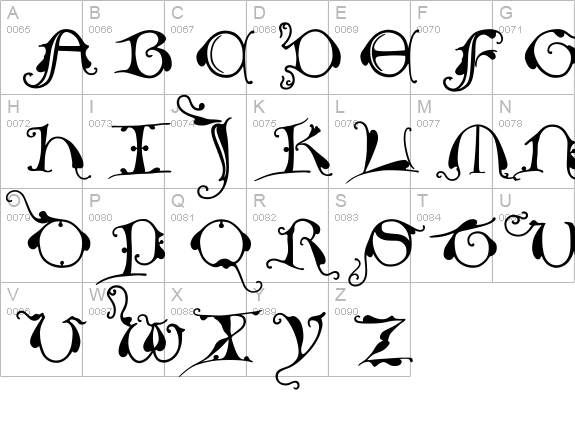
XiparosLombard Font Details
Introducing XiparosLombard, a stunning and elegant font that exudes sophistication and style. This timeless typeface features intricate details and graceful curves, making it perfect for adding a touch of class to any design project. XiparosLombard is a versatile font that can be used for a wide range of applications, from branding and marketing materials to invitations and signage. What sets XiparosLombard apart is not just its beauty, but also the fact that it is available for free download at FontsMarket.com. Now you can elevate your designs without breaking the bank, thanks to this exquisite font that is just a click away. Don't miss out on the opportunity to enhance your creations with XiparosLombard - download it today and let your creativity shine!